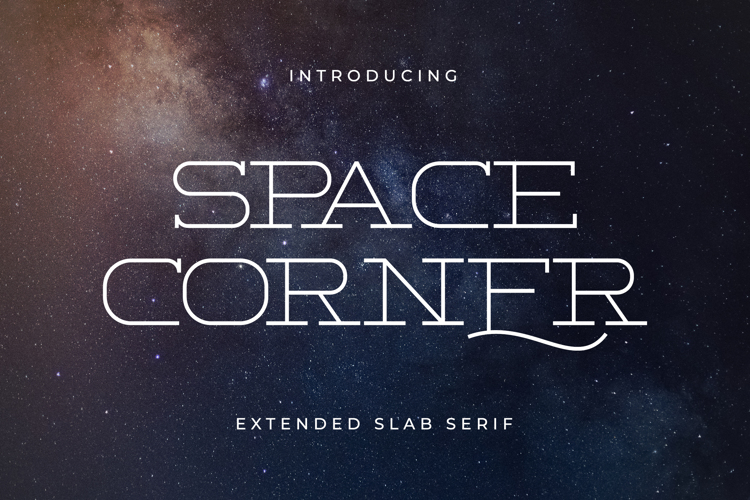
Space Corner Font
Space Corner is a thin slab serif font.
With its elegant and beautiful arrangement of letters, this typeface will look outstanding in both formal and non-formal designs.
Perfect for headlines or logos, jacket, poster, futuristic theme, etc. Finds its inspiration in the style of modern typefaces using extended slab serif and a elegant appearance.